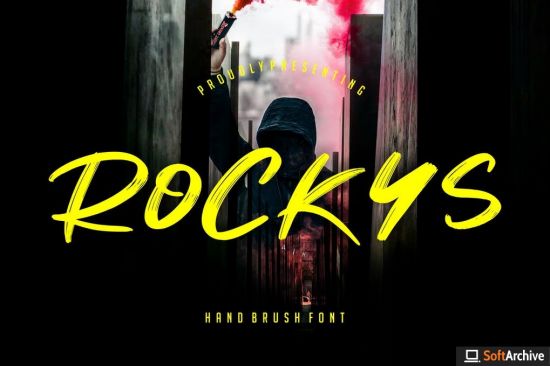
DesignOptimal - Rockys Handbrush Font
DesignOptimal.com - Rockys Handbrush Font
Rockys is handbrush script font with bold and natural looking style with ligature supporting to make your projects look truly authentic.